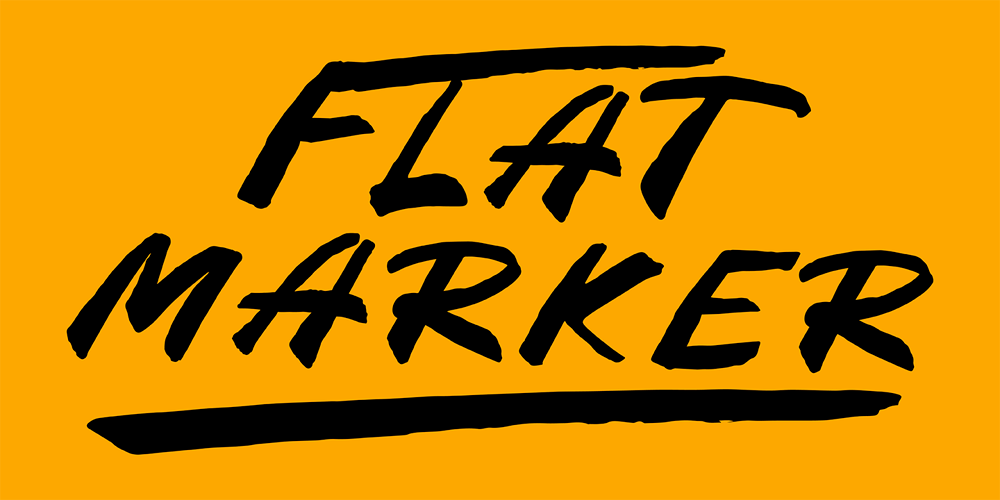
Flatmarker Font Family was designed by Iryna Kryvets and published by Irina Kryvets. Flatmarker contains 1 styles and family package options. Flatmarker is the rough, marker-like, handwritten look of the handmade font. Grunge effect of the font gives the script a high recognition value and uniqueness. Flatmarker is very versatile and works great for almost any subject matter, including birthdays cards, weddings, coffee shops, restaurants and many more. Font have natural hand brushed strokes to give your project that natural and realistic look. I hope you enjoy it!